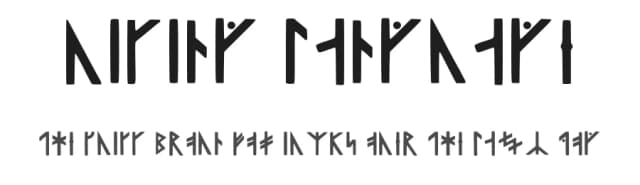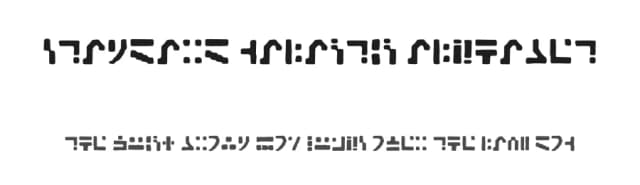
About Genshin Impact Font
Genshin Impact is a dingbat font designed by twts. It includes 62 glyphs, a regular weight, TTF (TrueType) format, and 89 languages. Genshin Impact is free to download; check the license details on this page before commercial use. Dingbat fonts like Genshin Impact work best for icons, ornaments, bullet points, and decorative accents.
Genshin Impact Font
by twts